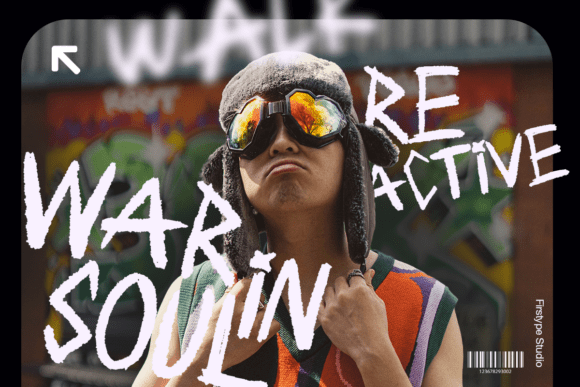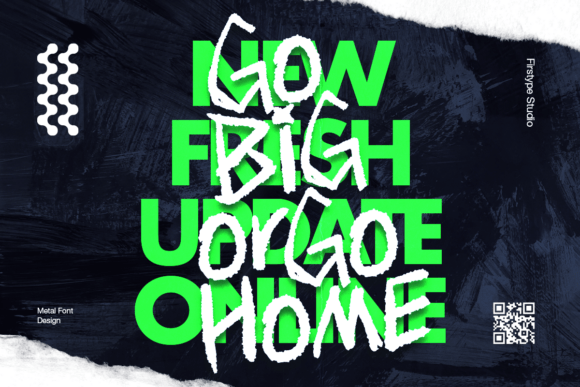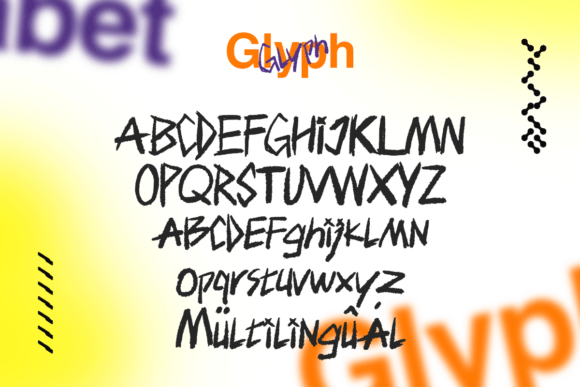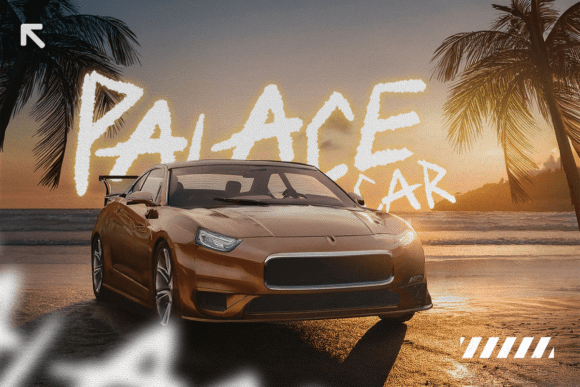
Unleashing the Power of FT Ruinic: A Font that Embodies Audacity and Might
I still remember the design project that led me to discover FT Ruinic. I was working on a branding campaign for a heavy metal band, and I was struggling to find a font that captured their raw energy and defiance. That’s when I stumbled upon FT Ruinic, a typeface that perfectly embodied the spirit of metal music. Its spiky, distinct shapes and intricate fine points immediately caught my attention, and I knew I had found the perfect fit for my project.
A Personal Review of FT Ruinic
- 💥 **Audacious and bold**: FT Ruinic is a font that commands attention and exudes confidence.
- 🔥 **Unique fusion of styles**: The font’s blend of archaic runic style and sleek metal aesthetics is truly one-of-a-kind.
- 💻 **Highly versatile**: FT Ruinic can be used for a wide range of design projects, from posters and flyers to logos and merchandise.
- 👍 **Exceptional craftsmanship**: The font’s intricate details and jagged contours showcase the craftsmanship of its designer.
While FT Ruinic is an exceptional font, it’s not without its quirks. For instance, some users may find that:
- 🤔 **Limited use in body text**: Due to its bold and ornate nature, FT Ruinic may not be the best choice for lengthy body text.
- ⚠️ **Requires careful kerning**: As with any font, kerning and letter spacing may require some manual adjustment to achieve optimal results.
According to the font’s creator, FT Ruinic was inspired by the raw energy and defiance of metal music. The designer aimed to capture the essence of this genre in a font that would be both bold and elegant. Through FT Ruinic, the designer sought to create a typeface that would inspire designers to push the boundaries of their creativity.
Q: What type of projects is FT Ruinic best suited for?
A: FT Ruinic is ideal for designs that require a bold, edgy look, such as posters, flyers, logos, and merchandise for metal bands, gaming communities, or industrial brands.
Q: Does FT Ruinic come with any OpenType features?
A: Yes, FT Ruinic includes OpenType features such as stylistic alternates, glyphs, and ligatures, which can be accessed in compatible software like Adobe Photoshop and Illustrator.
Q: Is FT Ruinic suitable for body text?
A: While FT Ruinic is a beautiful font, it’s not ideal for lengthy body text due to its bold and ornate nature. It’s best used for headlines, titles, and short paragraphs.